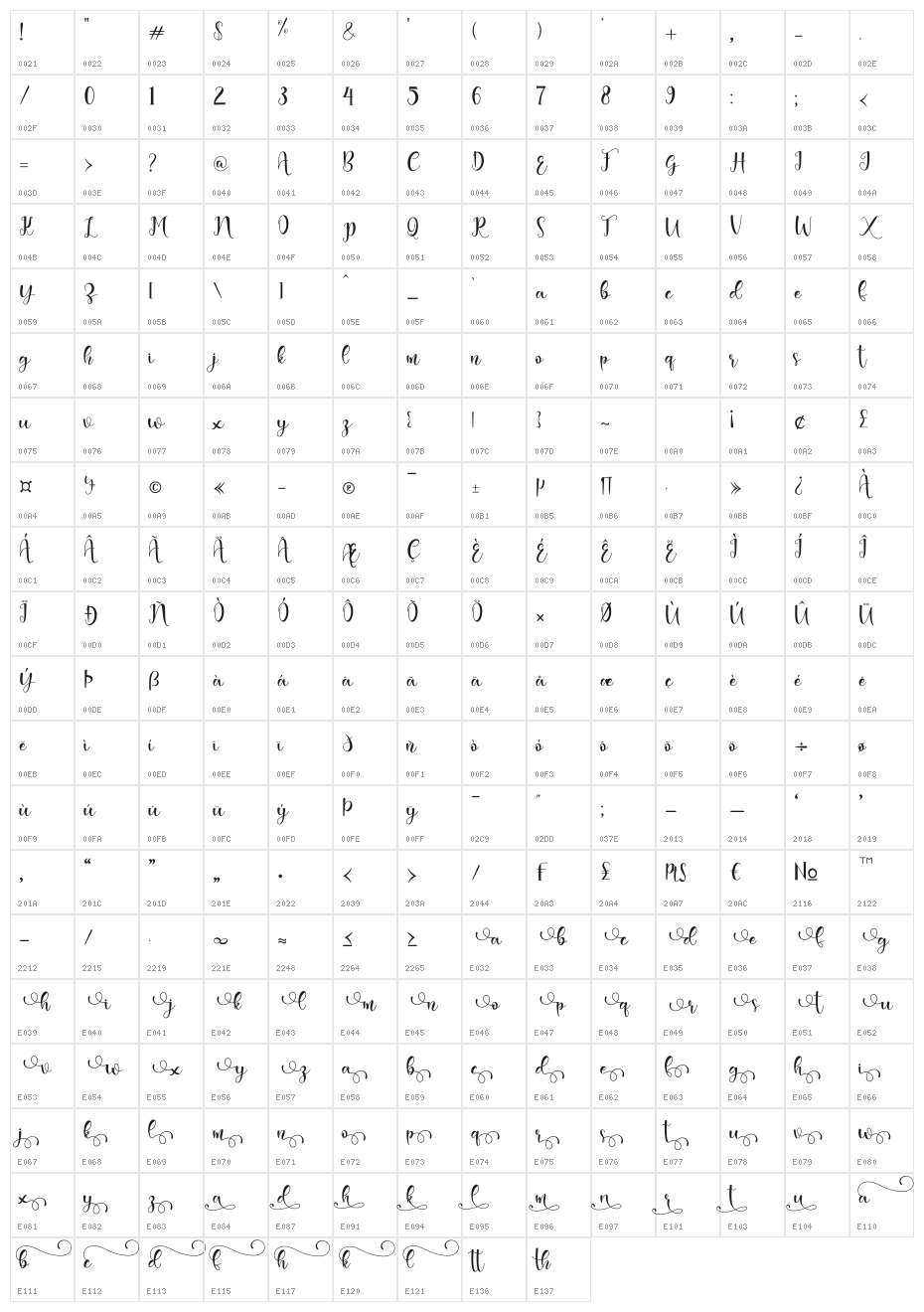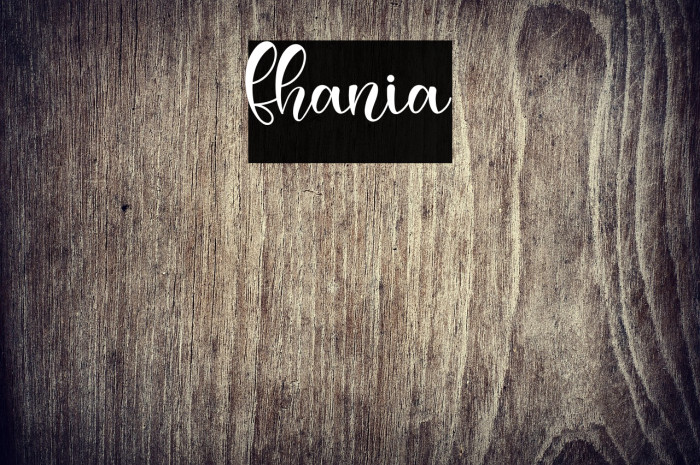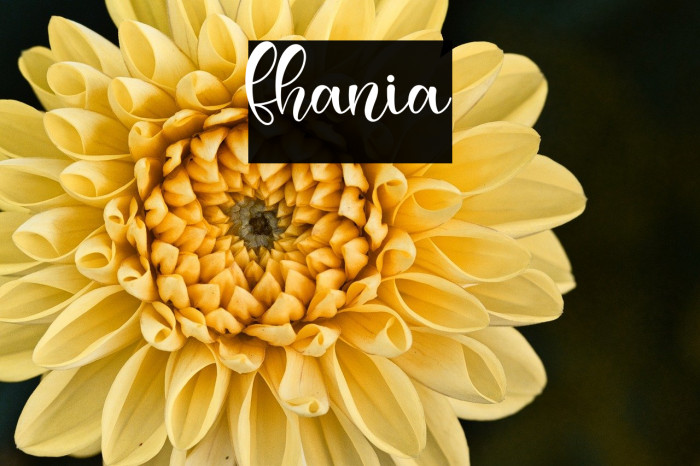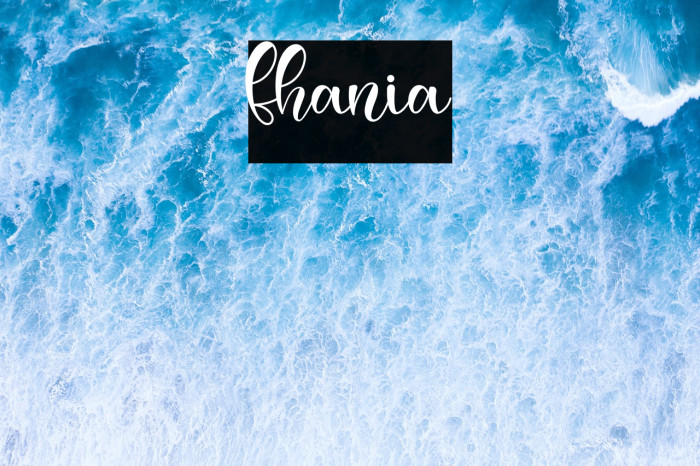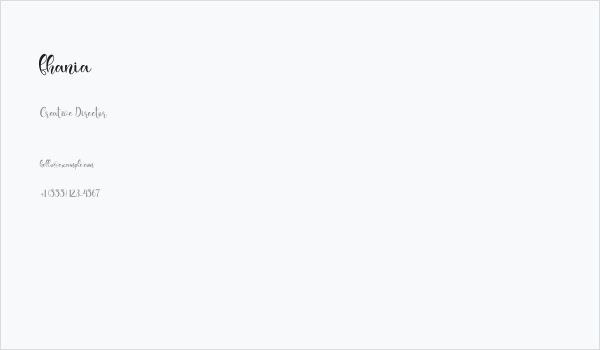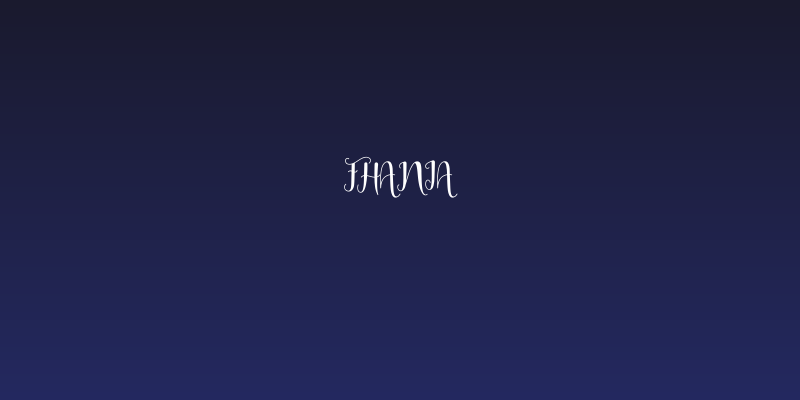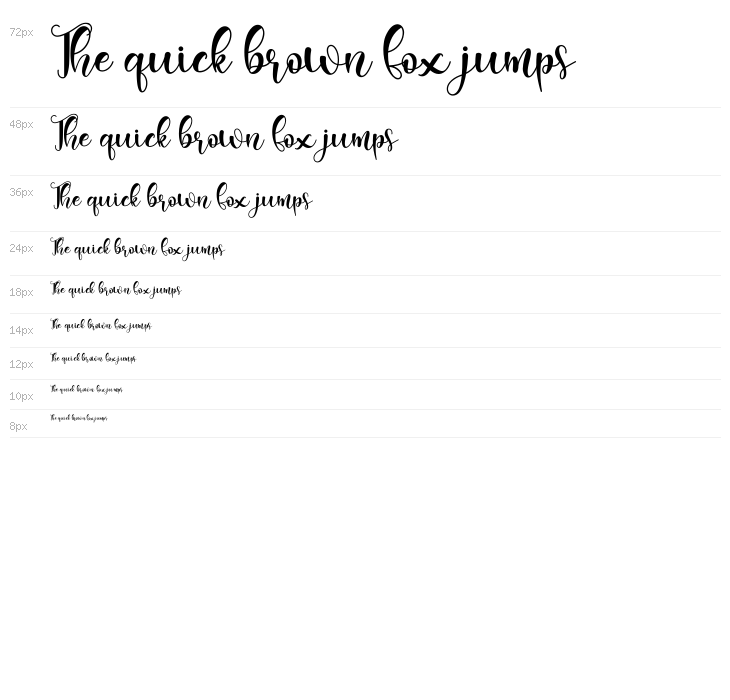
fhania Font
fhania Description
This font features an elegant and flowing script style, characterized by its smooth, cursive strokes and decorative flourishes. The uppercase letters are particularly ornate, with loops and swirls that add a touch of sophistication. The lowercase letters maintain a consistent flow, enhancing readability while retaining a stylish appearance. Numbers and special characters are designed to match the overall aesthetic, ensuring a cohesive look across all text elements. This font is perfect for projects that require a personal and artistic touch.